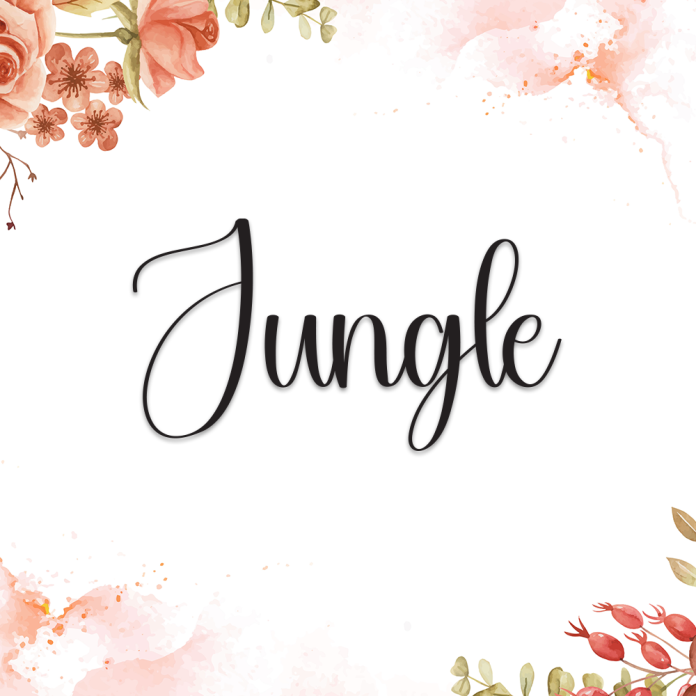
Jungle is a playful and organic handwriting font inspired by the untamed spirit of the wilderness. Its flowing, slightly rough strokes feel like they were written with twigs or vines, giving your design an adventurous and earthy feel.
Perfect for nature-themed designs, eco-friendly product branding, jungle-themed party invitations, children’s books, or anything that needs a natural handwritten flair.
Organic handwritten style
Inspired by jungle and nature elements
Great for earthy branding, packaging, and posters
Includes uppercase, lowercase, numerals & symbols
Bring the wild into your words with Jungle — a font that’s as raw and lively as nature itself!